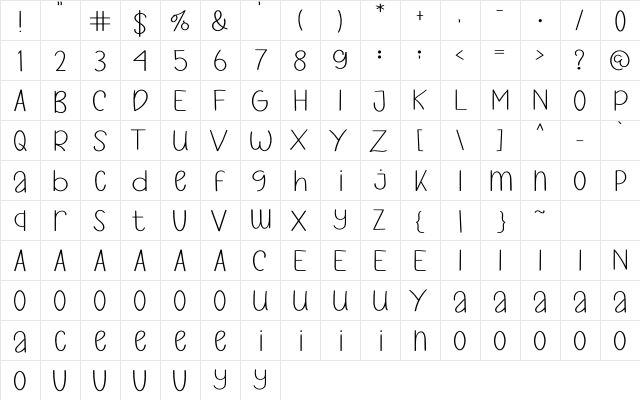
Fresf Glamour Regular
Design Context for Fresf Glamour Typeface
Fresf Glamour is a composed and adaptable typeface that performs quietly and consistently across a wide range of design contexts.
Pro Tip: Use Fresf Glamour in both headline and body roles to test its range before committing to a single application.